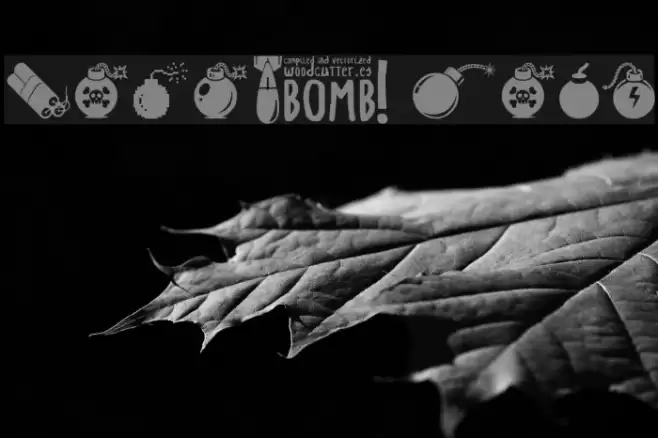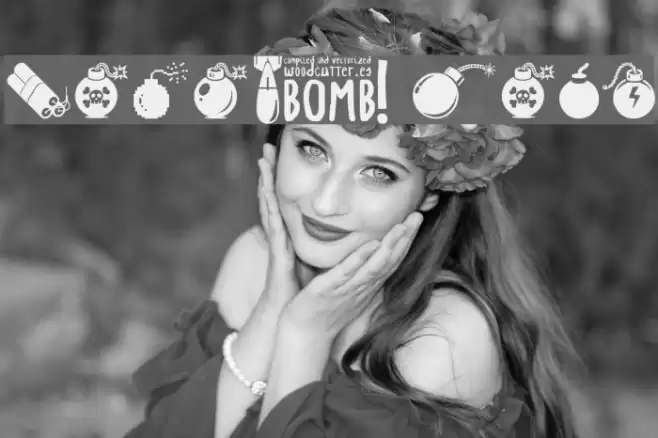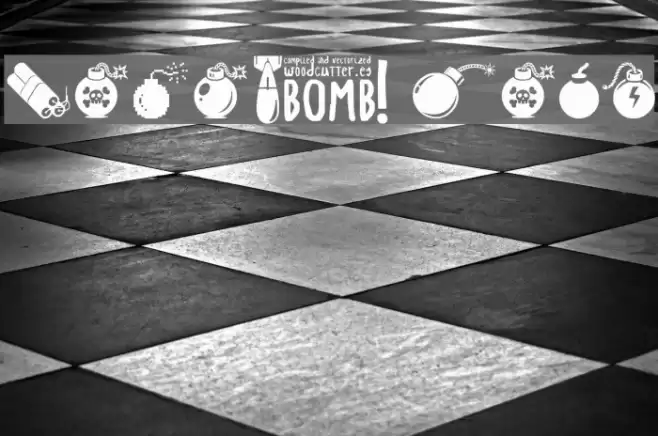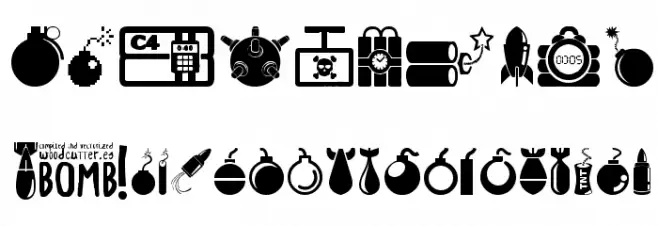
Bomb! Font
Bomb! Description
A decorative display font composed entirely of bomb, explosive, and detonation-themed pictograms, each character represented by a unique black silhouette icon. The style is playful and bold, with high visual impact and strong geometric shapes, making each glyph easily distinguishable.
A pictogram font featuring bomb and explosive icons from Uncategorized fonts.
- Font: Bomb!
- Proposed Projects: Posters, warning signs, themed party invitations, comic books, educational materials about safety, video game UI, novelty t-shirts.
- Overall Style: Decorative, Playful, Thematic
- Use Case: Icons, Themed headlines, Visual storytelling, Graphic design elements